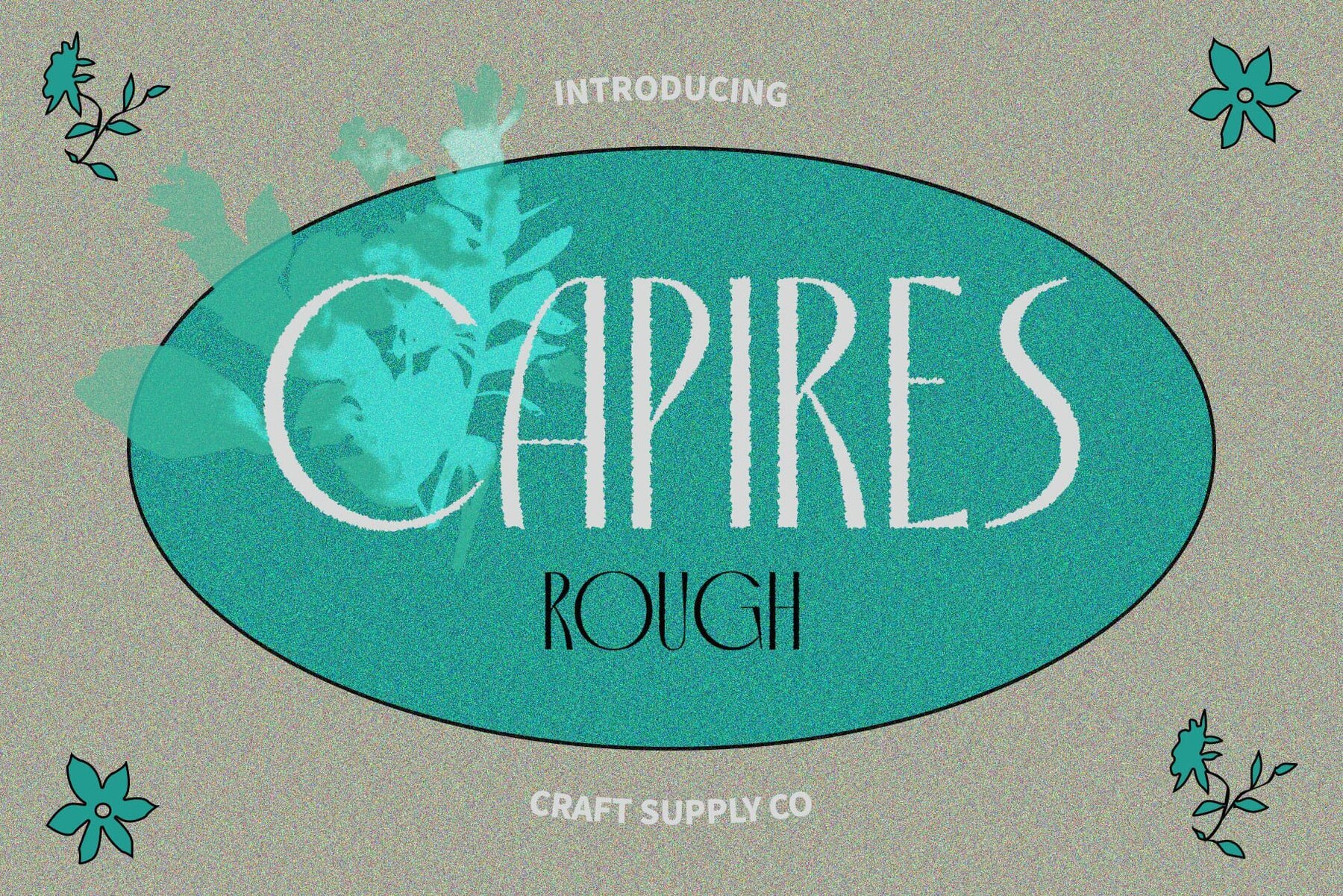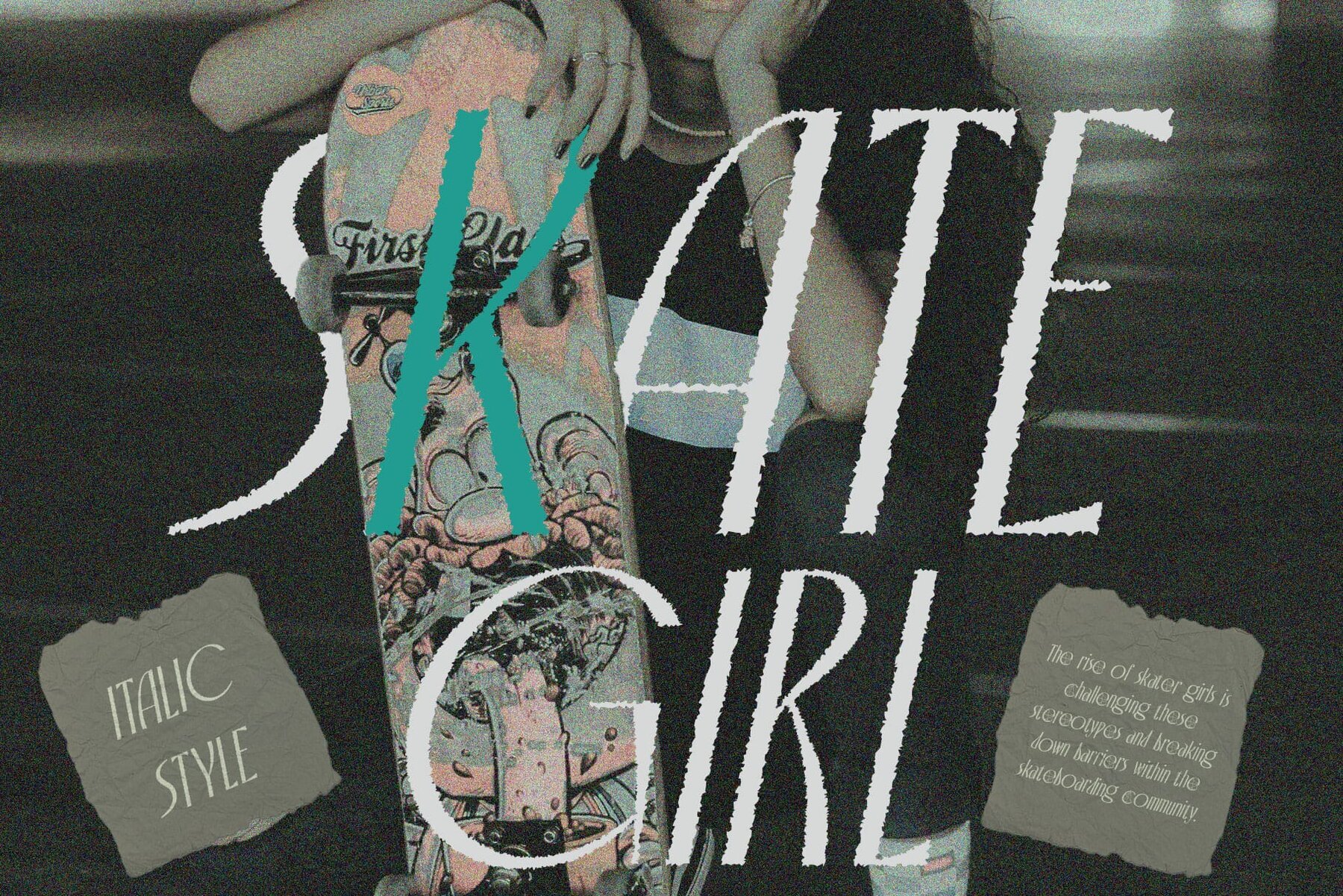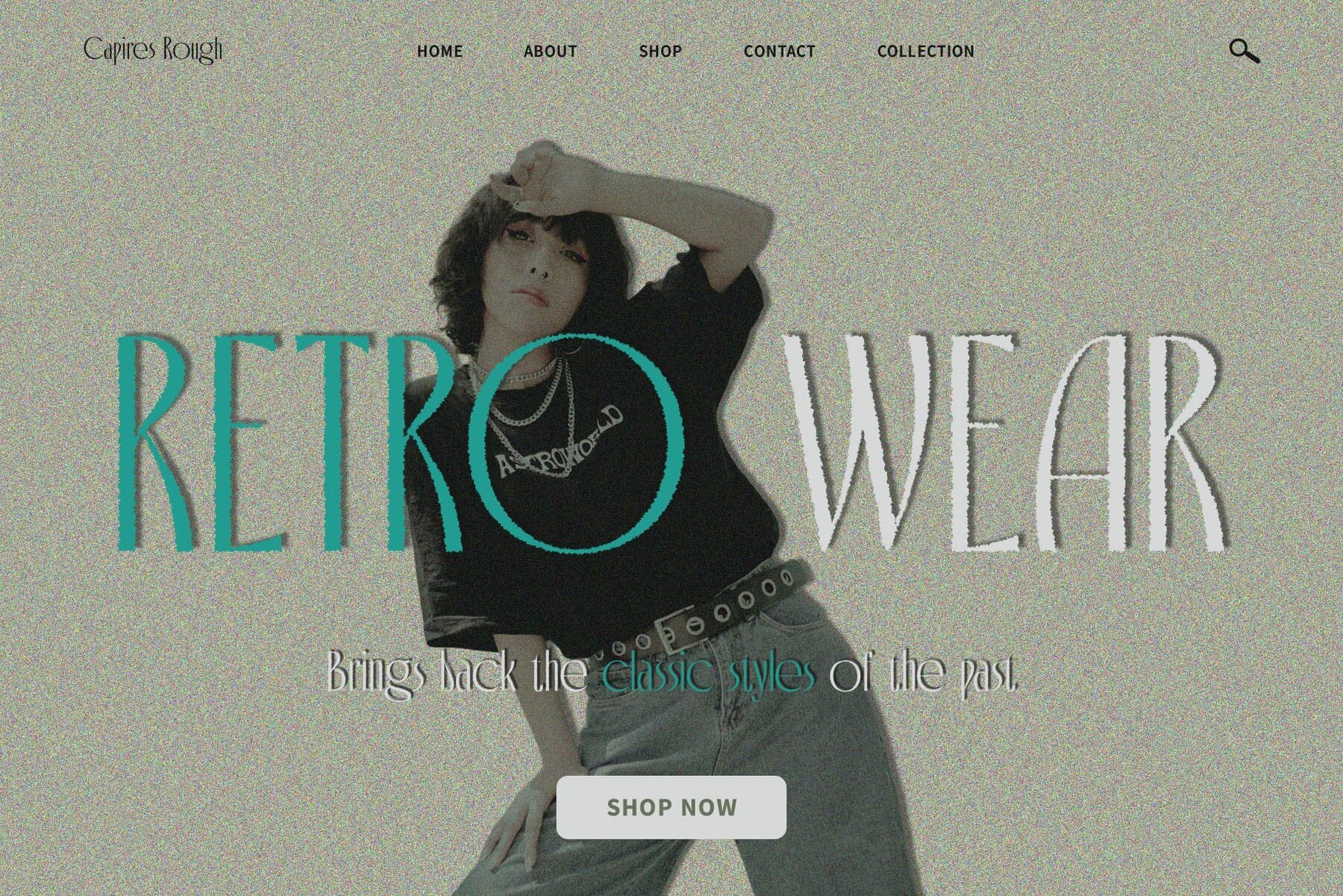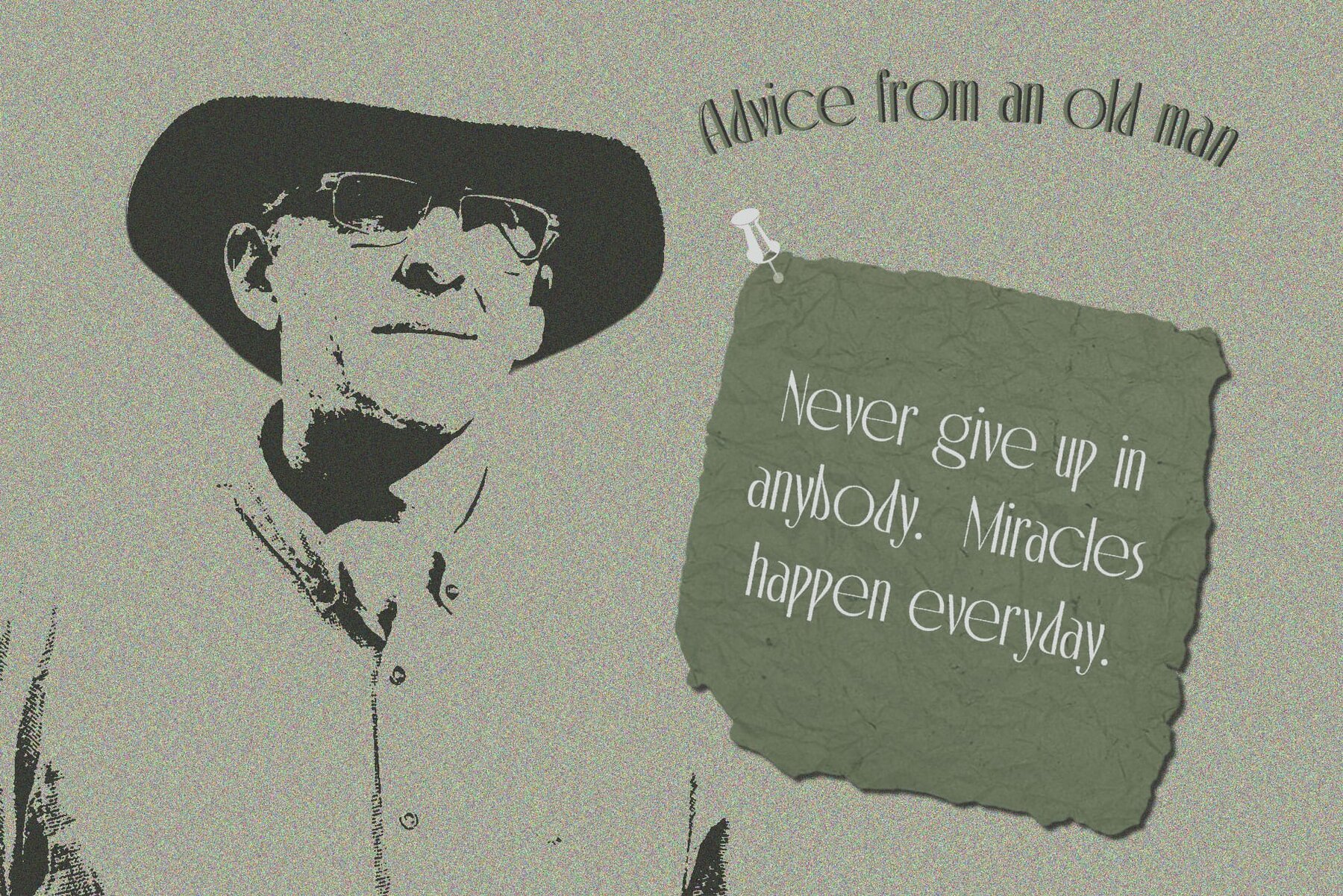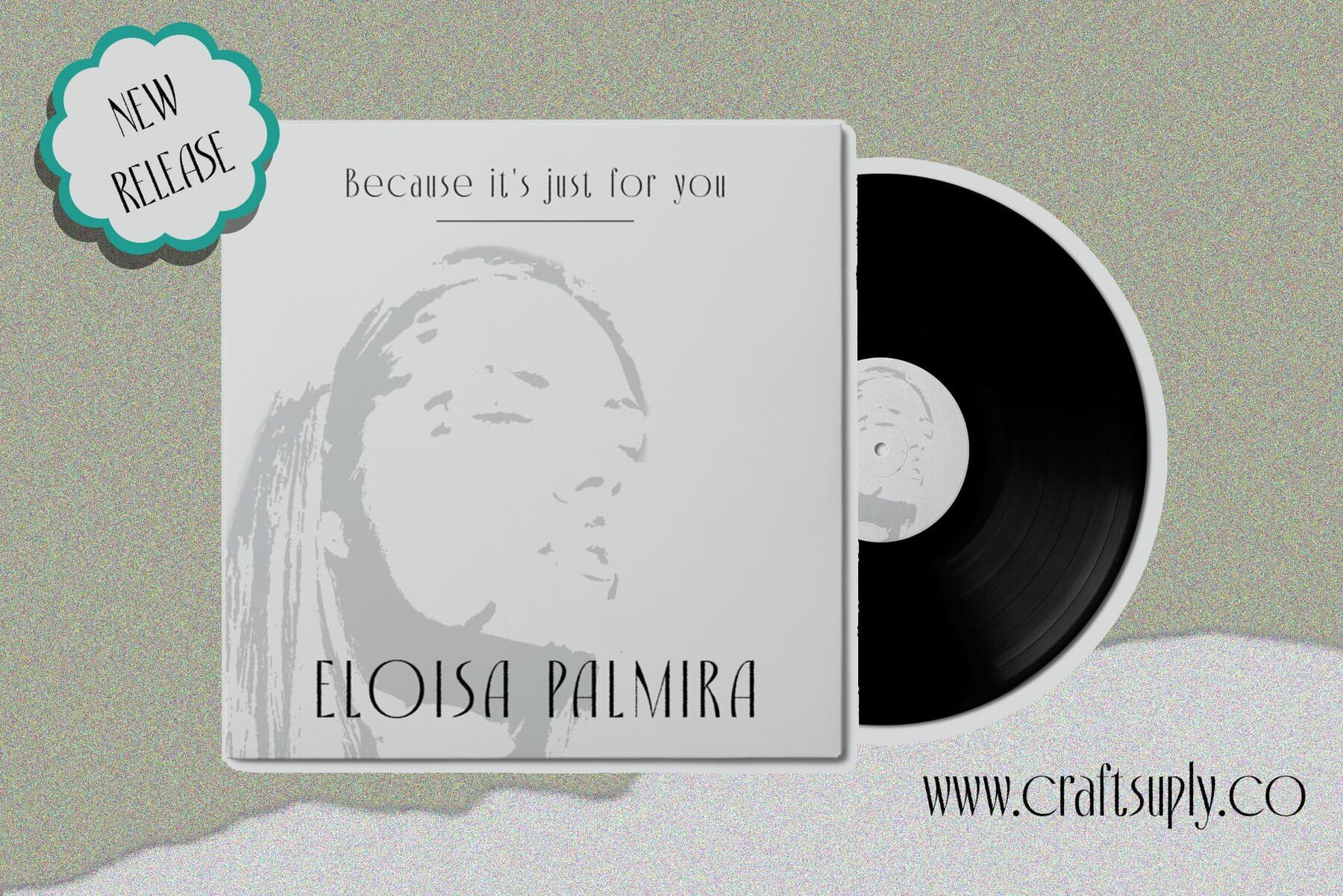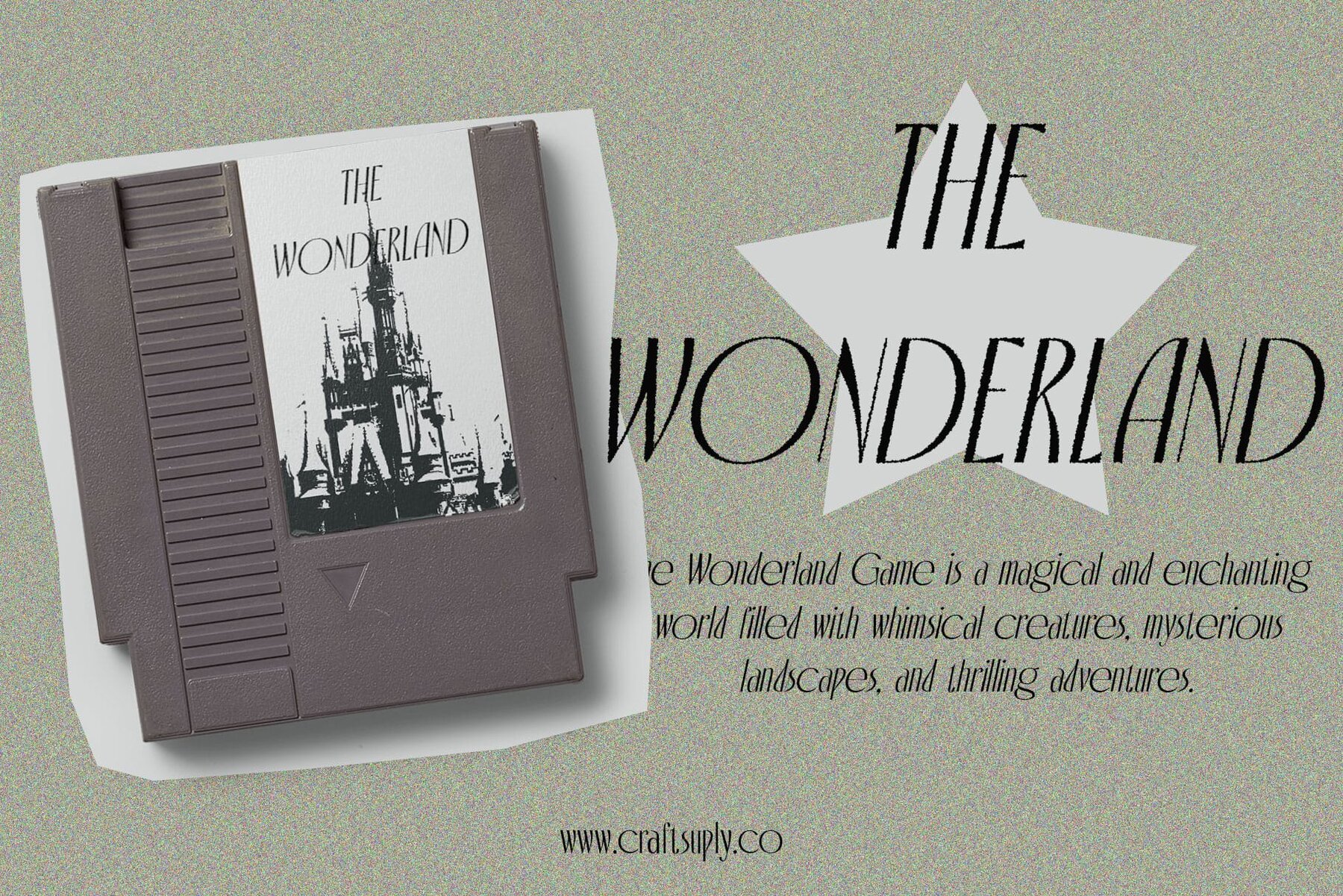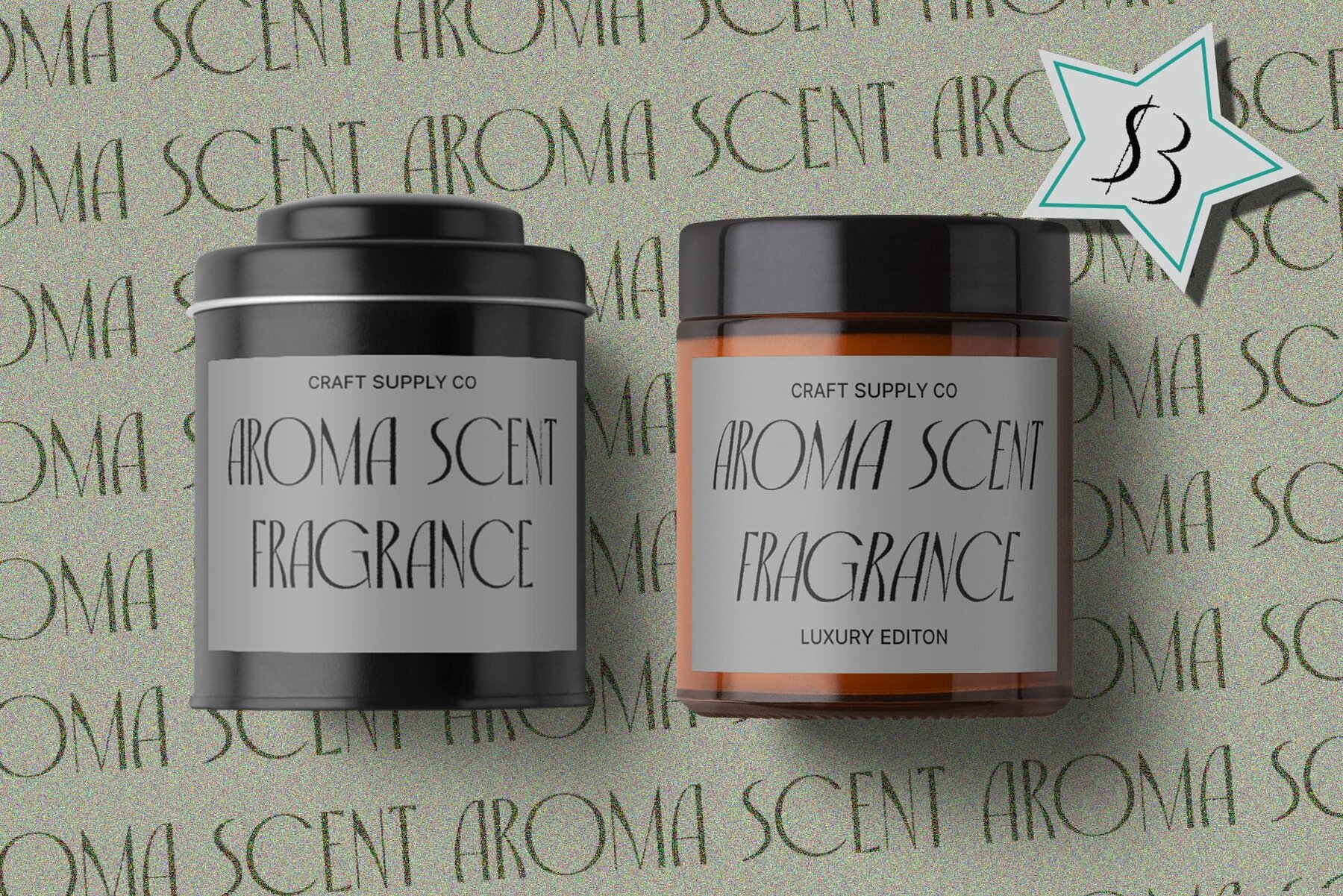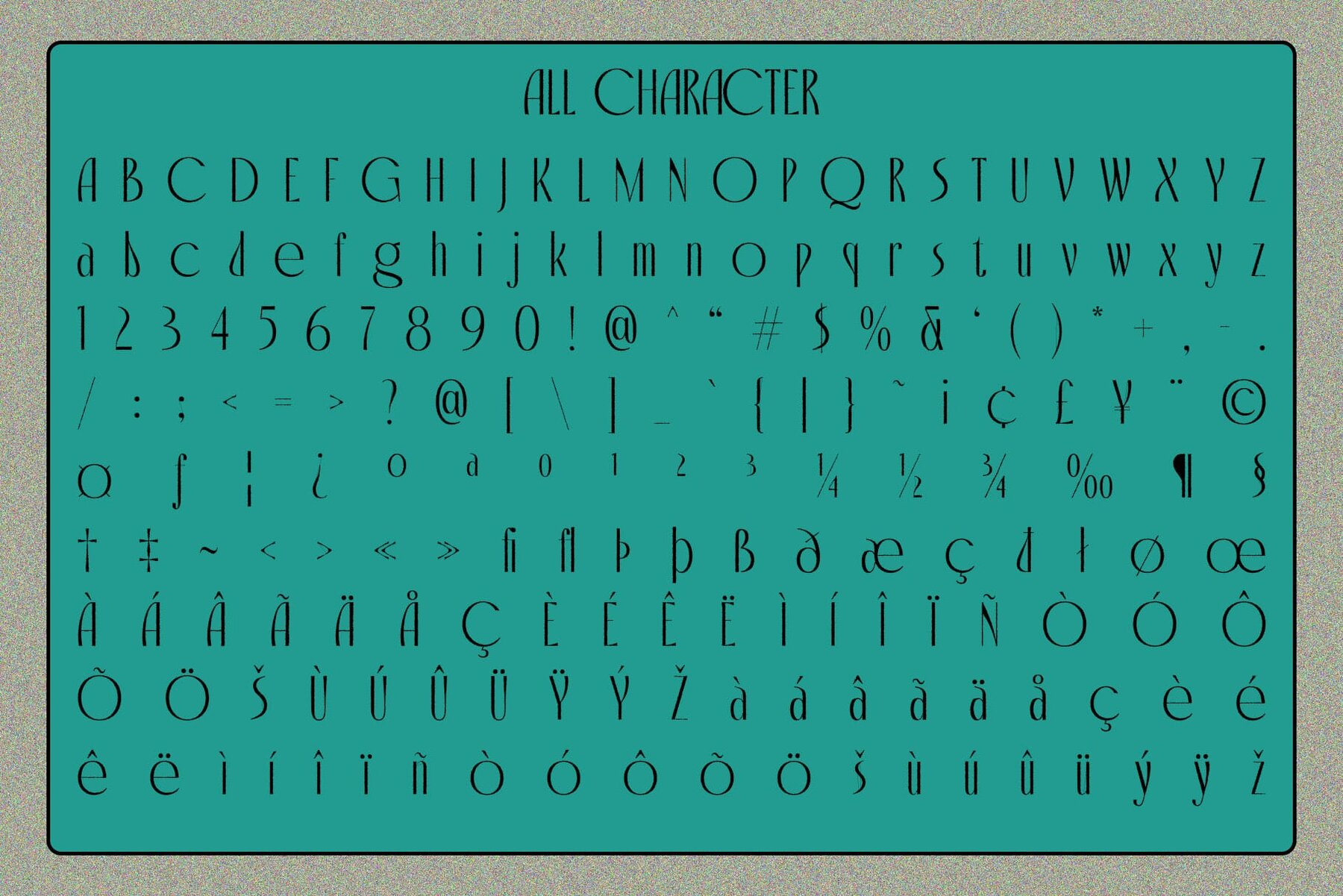
Capires Rough Font
Capires Rough, designed by Craft Supply Co., offers a unique blend of Art Nouveau elegance and modern design elements. This high contrast sans serif font is characterized by its striking letterforms and sophisticated aesthetic, making it an ideal choice for branding, editorial design, and upscale advertising campaigns. Due to its versatile and bold design, Capires Rough is exceptionally suited for various applications: Overall, Capires Rough from Craft Supply Co. is more than just a typeface; it’s a versatile tool that adds a sophisticated and artistic touch to a wide range of design projects.Capires Rough: Art Nouveau Inspired High Contrast Sans Serif
Design Features and Aesthetics
Applications and Use Cases